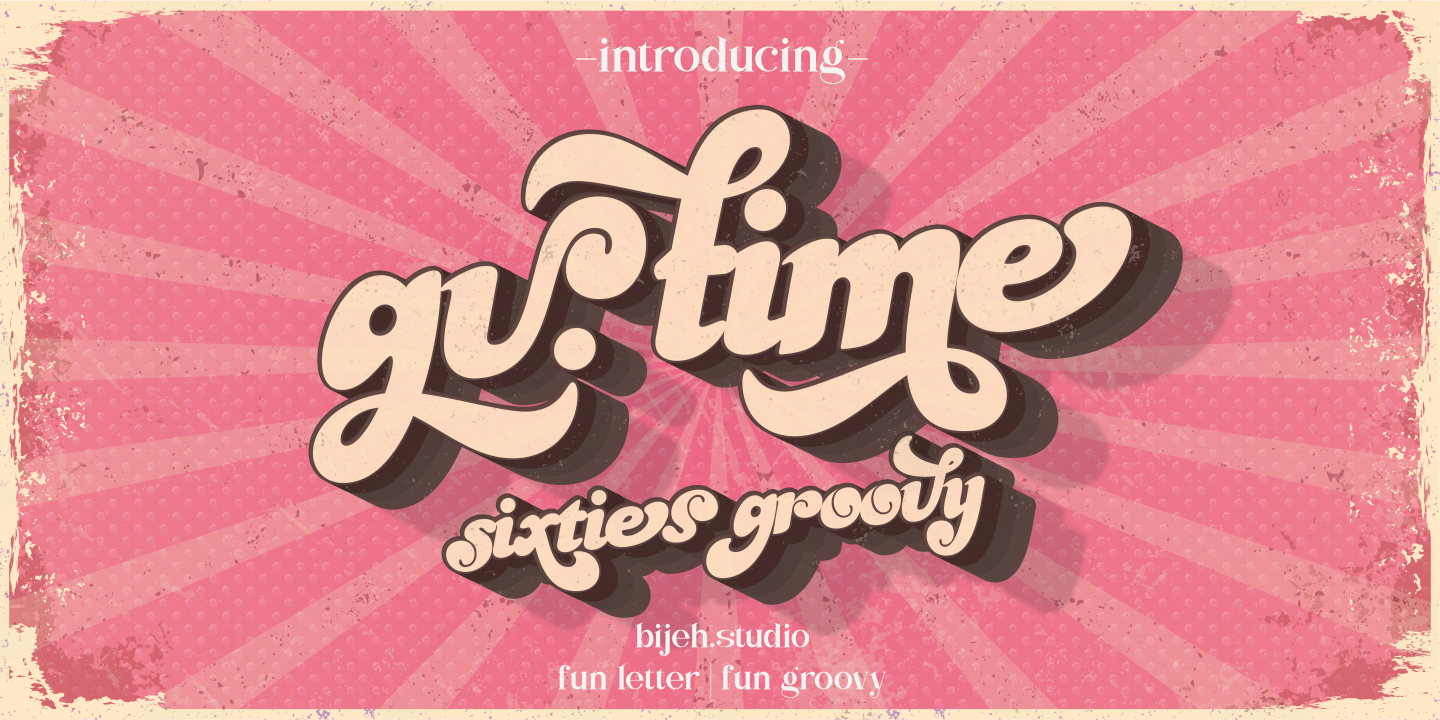
Gv Time Font is perfect for luxury watch advertising, timepiece manufacturer branding, clock shop signage, precision instrument marketing, chronograph catalogs, horological publications, and elegant timekeeper collections that require sophisticated temporal typography.
This font is exciting because it embodies the precision and elegance of fine timepieces, featuring meticulously crafted letterforms that convey accuracy, sophistication, and the timeless beauty of horological craftsmanship while maintaining perfect readability.
The Gv Time Font family includes light, regular, and bold weights with refined variants, offering uppercase and lowercase letters, precise numerals, clockwork ornaments, elegant punctuation marks, and temporal symbols designed specifically for horological applications.
Timepiece designers consistently choose Gv Time Font Free Download for projects requiring horological sophistication and precision craftsmanship appeal. This distinguished typeface transforms ordinary communications into elegant statements of temporal excellence that immediately resonate with audiences who appreciate fine mechanical artistry and Swiss precision. The font's refined character makes it exceptionally effective for luxury watch boutiques, collector catalogs, and high-end timepiece marketing where craftsmanship and heritage must be communicated through every visual element. Its timeless elegance bridges traditional horological values with contemporary luxury marketing, making it invaluable for brands celebrating mechanical precision and temporal artistry. The carefully engineered letterforms maintain their sophisticated appeal across digital displays and printed materials, ensuring consistent brand recognition and luxury positioning. Whether you're developing watchmaker brand identities, creating collector edition catalogs, or designing horological exhibition materials, this typeface provides the authentic voice and visual precision that distinguishes genuine timepiece craftsmanship from mass-market accessories, establishing immediate credibility among collectors and enthusiasts who demand the highest standards of mechanical excellence and appreciate the enduring beauty of precision timekeeping artistry.